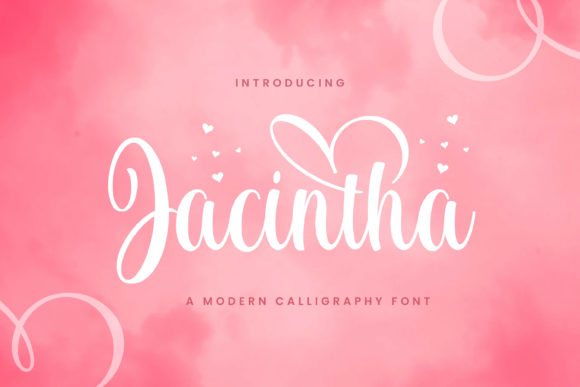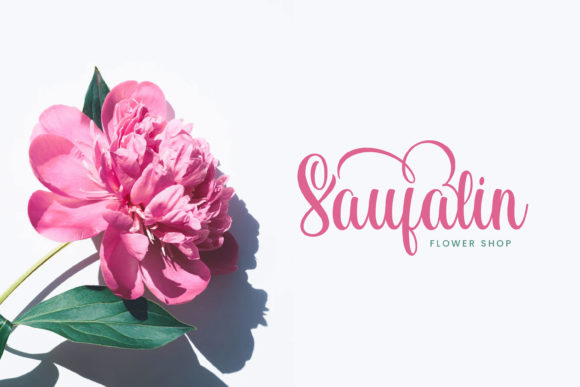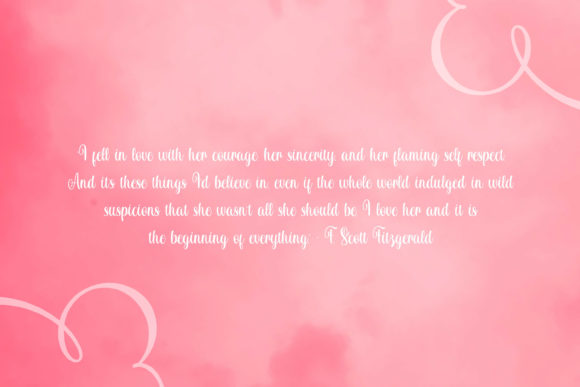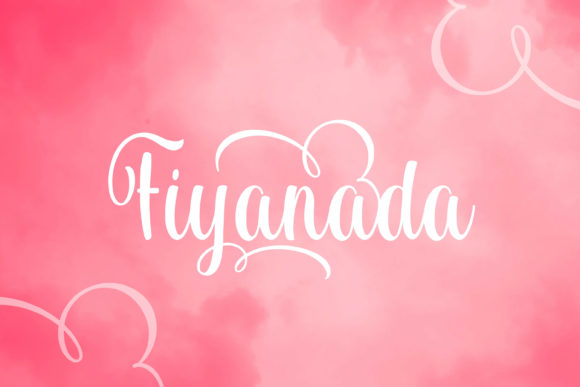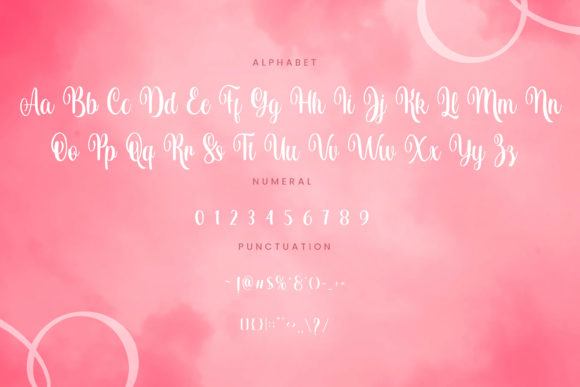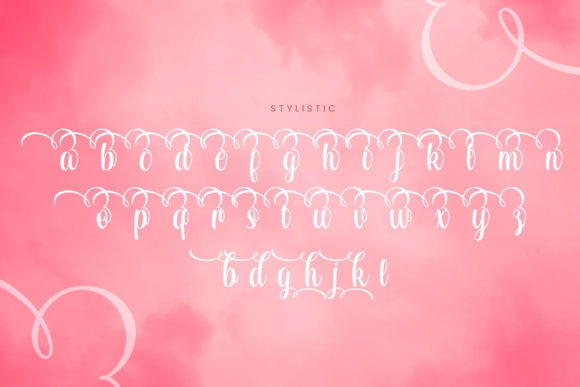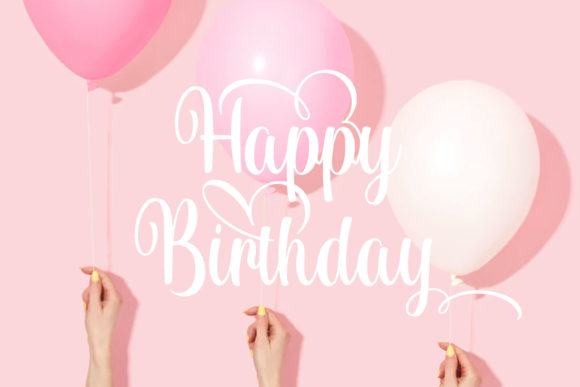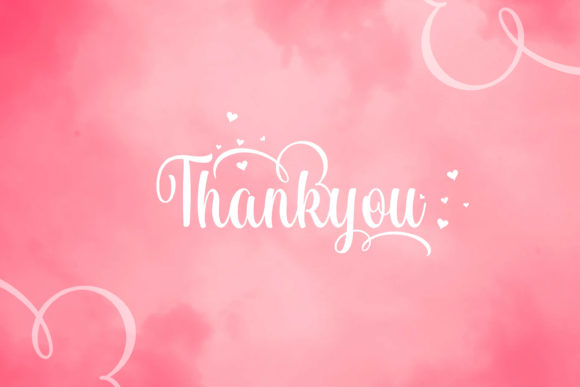
Jacintha Font
About Jacintha Font
Jacintha is a stylish and incredibly elegant handwritten font. It looks stunning on wedding invitations, thank you cards, quotes, greeting cards, logos, business cards and every other design which needs a customized touch.